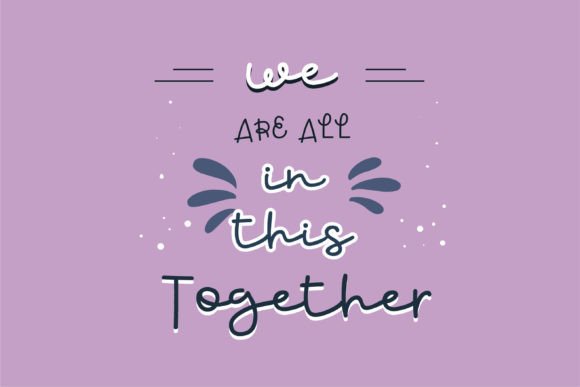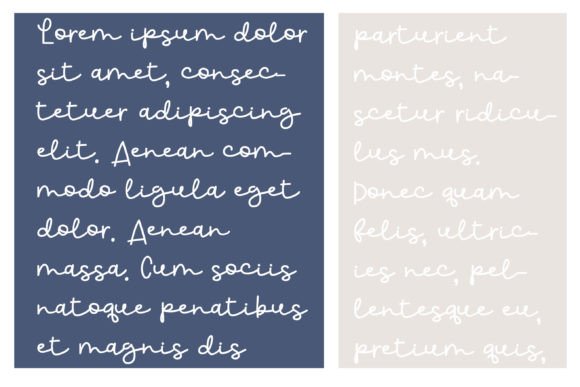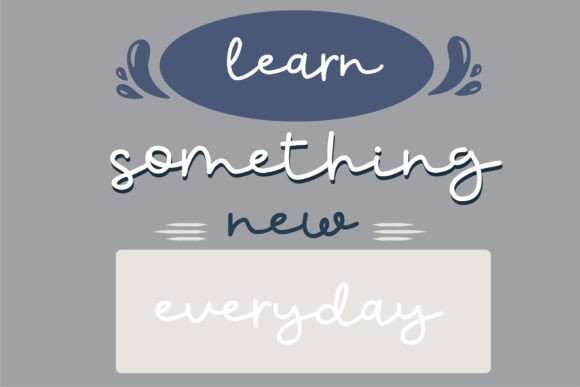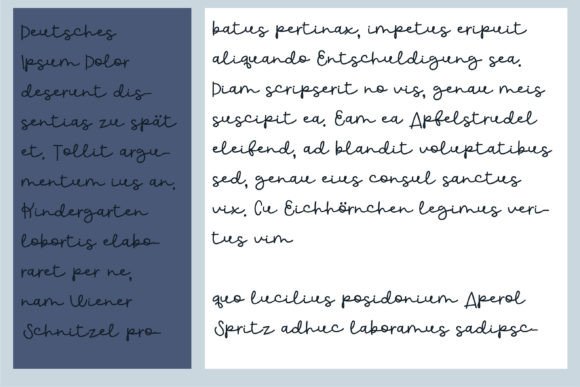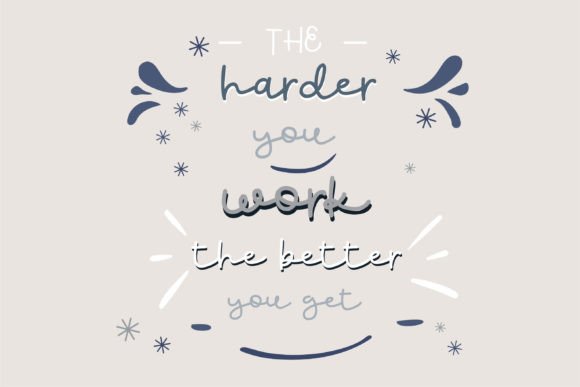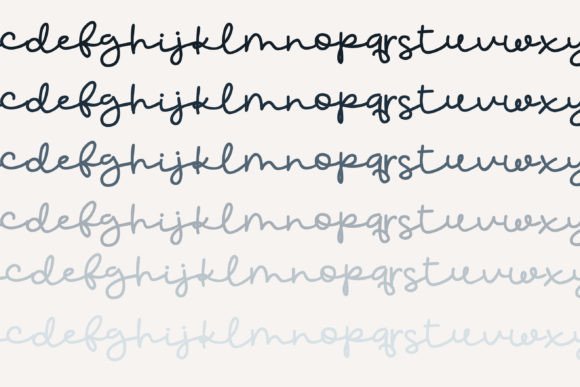
Better Than Font
About Better Than Font
Introducing a fun hand-crafted script font, brimming with bounce and whimsy. This delightful font is perfect for laid-back creative projects, especially those designed for kids or anything informal and playful.
The charm of this font lies in its lively and playful nature, bringing a sense of joy and informality to your text. The bouncy script adds a whimsical touch, making it ideal for projects that aim to convey a light-hearted and carefree atmosphere.
Consider using this font for kid-friendly designs, such as children’s books, playful posters, or educational materials. Picture it on informal and playful branding, where the font’s bounce can add a touch of fun to the overall brand personality. Whether you’re working on invitations, product packaging, or any creative project that calls for a laid-back and whimsical vibe, this font is ready to bring a playful spirit to your designs.
In summary, this hand-crafted script font is more than just letters; it’s a creative element that adds bounce and whimsy to your projects. Its playful nature makes it a perfect fit for anything informal and creative, particularly for children or projects that embrace a light-hearted aesthetic. Let this font be the cheerful and lively script that brings joy and informality to your playful designs.